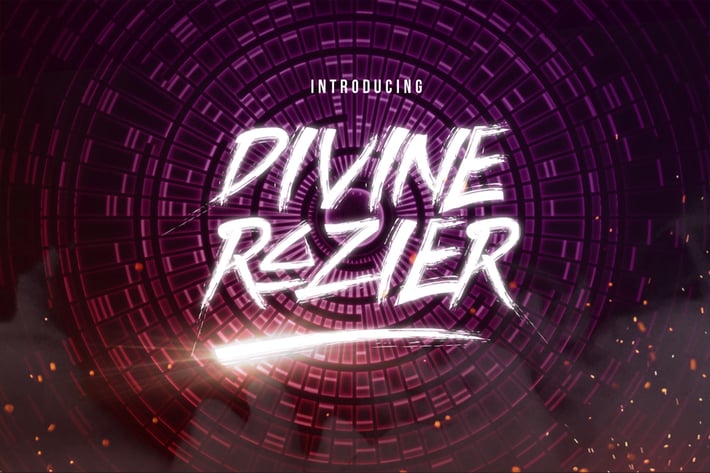
Divine Razier Font
Introducing Divine Razier Font a rough Brush font with Street style,
created on november 2016, reflect the
Precious and futuristic on one precious font.
and suitable for any design needs, branding, modern advertising design, Art Quote, Book/Cover Title, special events, custom mug, pillow, t-shirts, any brush lettering needs and more.